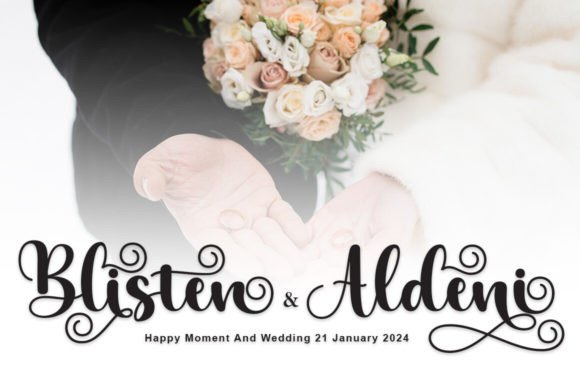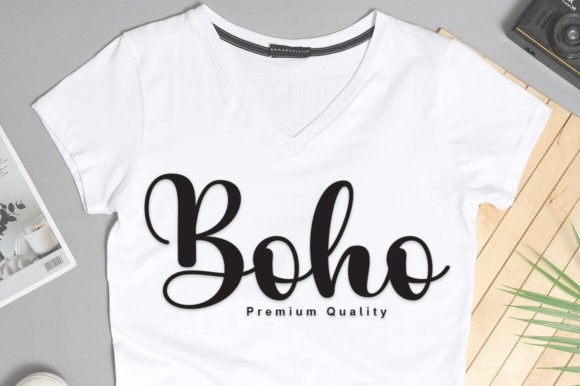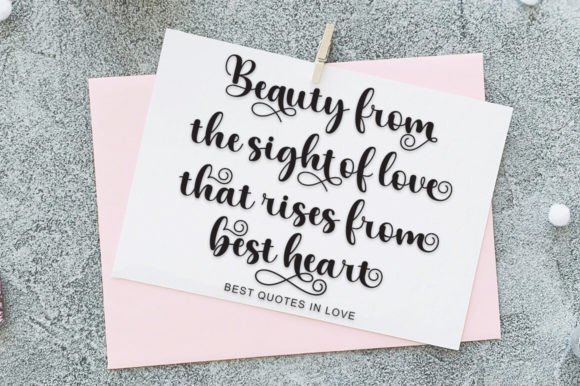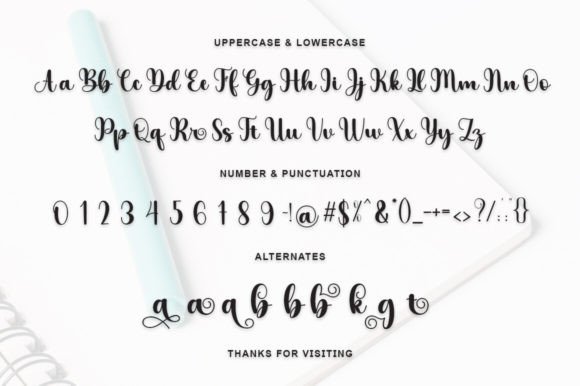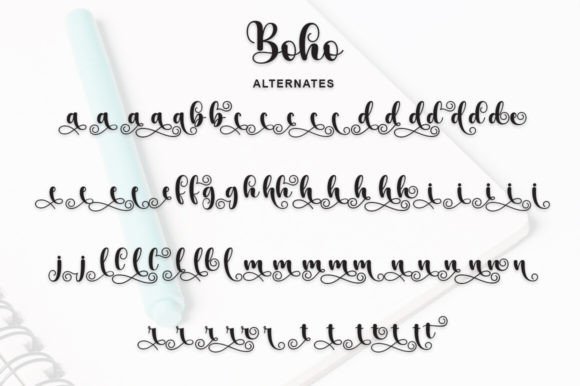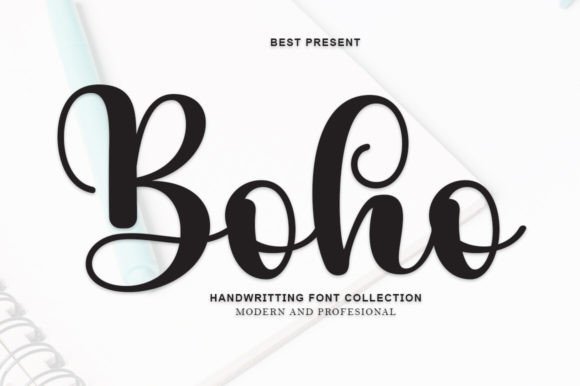
The Boho Font: A Modern Calligraphy Design for Creative Minds
Have you ever been in the middle of a design project, and suddenly, you’re stuck on finding the perfect font? I recall a recent experience where I was working on a wedding invitation design, and my client requested a font that was both elegant and playful. After hours of searching, I stumbled upon the Boho Font, and it instantly became my go-to choice. In this article, I’ll share my journey with the Boho Font, its features, and how to make the most of it in various design platforms.
A Personal Review of Boho Font
The Boho Font is a modern calligraphy design that includes a regular style and swashes, making it perfect for a wide range of design projects. Here’s what I love about it:
• ✨ Casual yet beautiful: The Boho Font has a unique blend of casual and elegant features, making it suitable for various design projects.
• ✅ PUA encoded: The font is PUA encoded, which means you can easily access all the amazing glyphs and ligatures.
• 🎨 Versatile: You can use it for logos, product packaging, wedding invitations, branding, headlines, signage, labels, signatures, book covers, posters, quotes, and more.
While the Boho Font is amazing, there are a few small quirks to keep in mind:
• ⚠️ Some swashes may not work well in certain platforms: You might need to adjust or disable swashes in some design software.
• 🤔 Glyphs and ligatures may require extra setup: You’ll need to access the OpenType features or glyph panel in your design software to make the most of the font’s capabilities.
The Backstory of Boho Font: Designer Inspiration
The Boho Font was created with the intention of providing a modern, yet elegant calligraphy design. While the actual designer remains anonymous, it’s clear that their goal was to craft a font that would inspire creativity and add a touch of sophistication to various design projects. The result is a beautiful, versatile font that has captured the hearts of designers and crafters alike.
Font Name Boho Font
Author Creative Design
What is the Boho Font best used for? The Boho Font is versatile and can be used for logos, product packaging, wedding invitations, branding, headlines, signage, labels, signatures, book covers, posters, quotes, and more.
Is the Boho Font PUA encoded? Yes, the Boho Font is PUA encoded, making it easy to access all the amazing glyphs and ligatures.
Does the Boho Font include swashes? Yes, the Boho Font includes swashes, which can add a touch of elegance and sophistication to your designs.